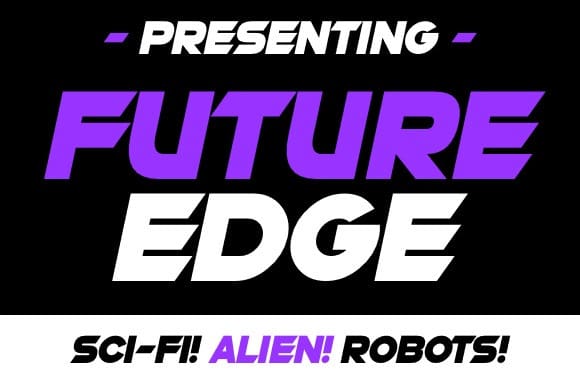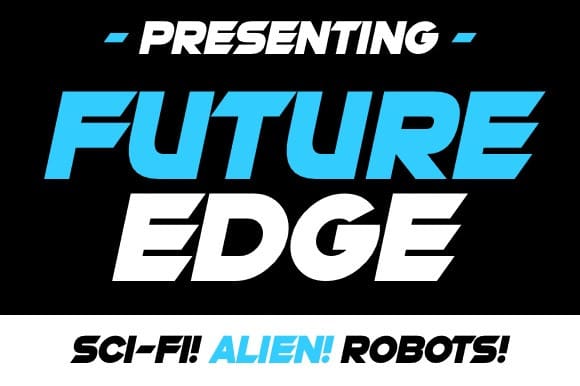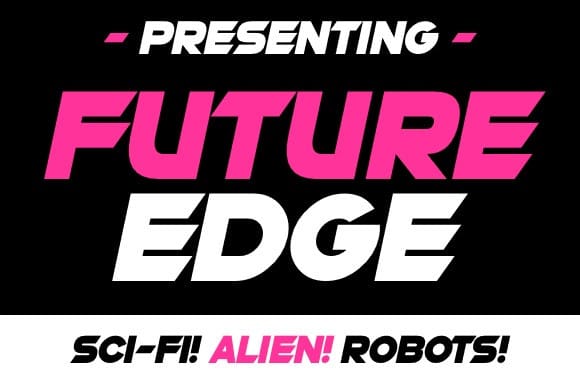
Future Edge Font
Future Edge Font, this bundle features strong, confident and powerful typefaces designed to work great with sports logos, club branding, apparel applications, labels and more.